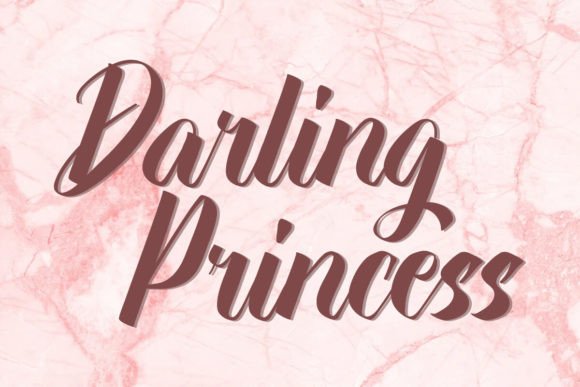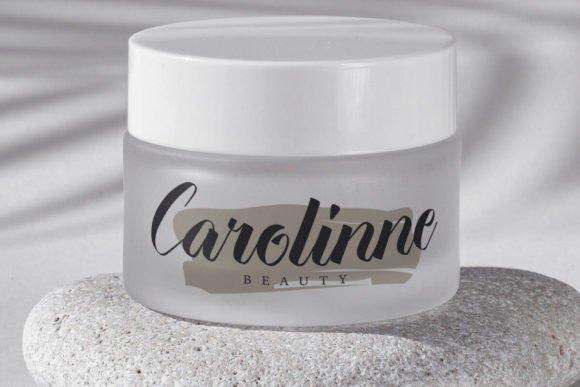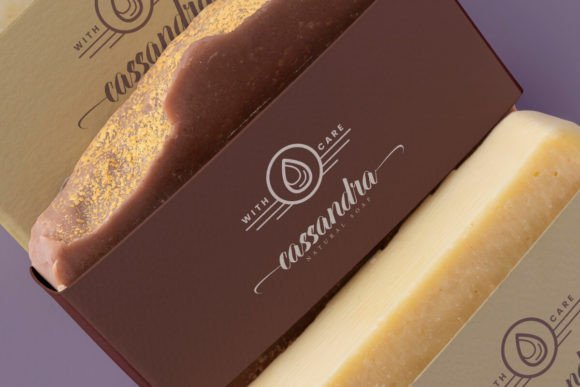
About the Darling Princess Font
The Darling Princess Font is here to transform your projects with its distinctive character and style. Darling Princess is a lovely script font in a modern calligraphy style. It has a clean and easy to read that will add to the beauty of your designs, such as brand logo, brochure, business card, cover, invitation, label, product packaging, quote, sticker, title, watermark, website, and much more!
Darling Princess’s elegant, yet approachable style makes it ideal for branding projects requiring a touch of sophistication, particularly logos, invitations, and short-form marketing materials. It excels in headlines and short text blocks where its calligraphic grace can shine. However, its delicate nature makes it unsuitable for body text or extended reading.
Pairing it with a clean sans-serif like Lato or a geometric sans-serif like Futura creates a balanced contrast; the clean lines of these fonts complement Darling Princess’s flowing script, providing readability where needed. For a warmer feel, consider pairing it with a classic serif like Garamond.
Darling Princess projects a friendly yet refined personality, best suited to brands focusing on beauty, fashion, or luxury goods. Avoid using it in contexts requiring strong visual impact or high readability over long lengths of text.